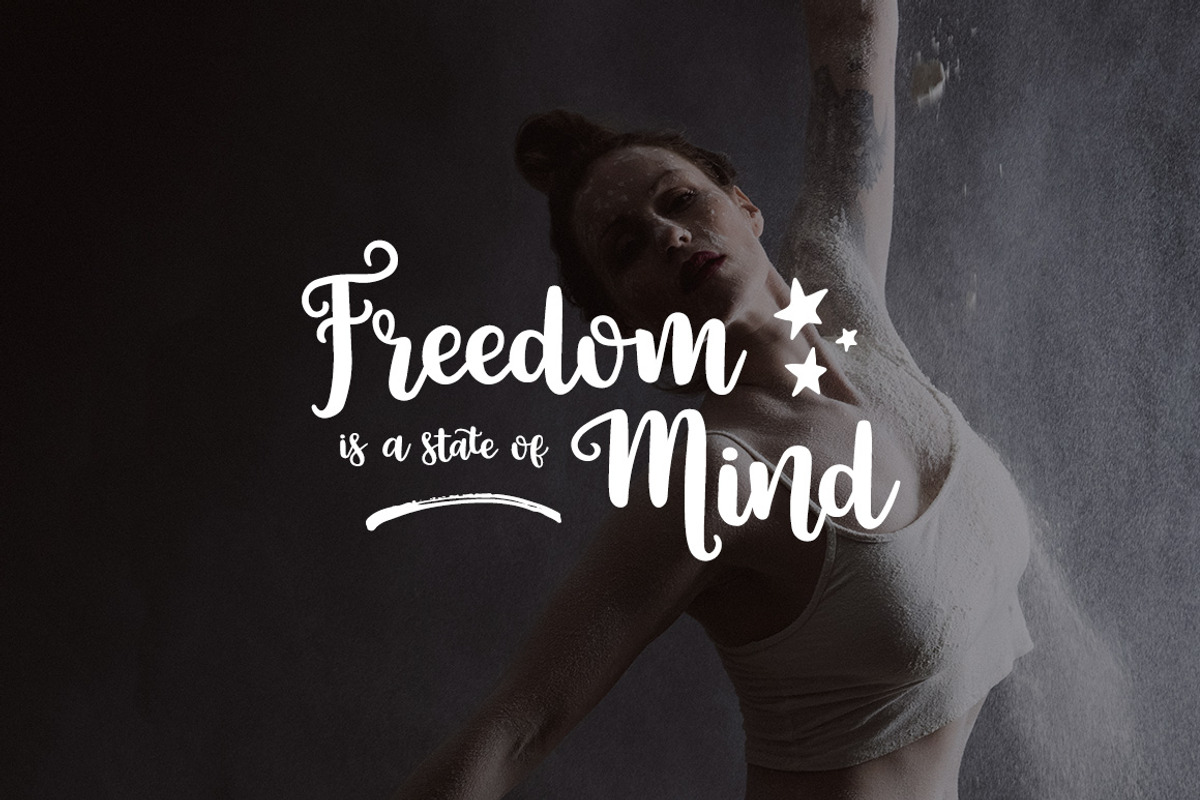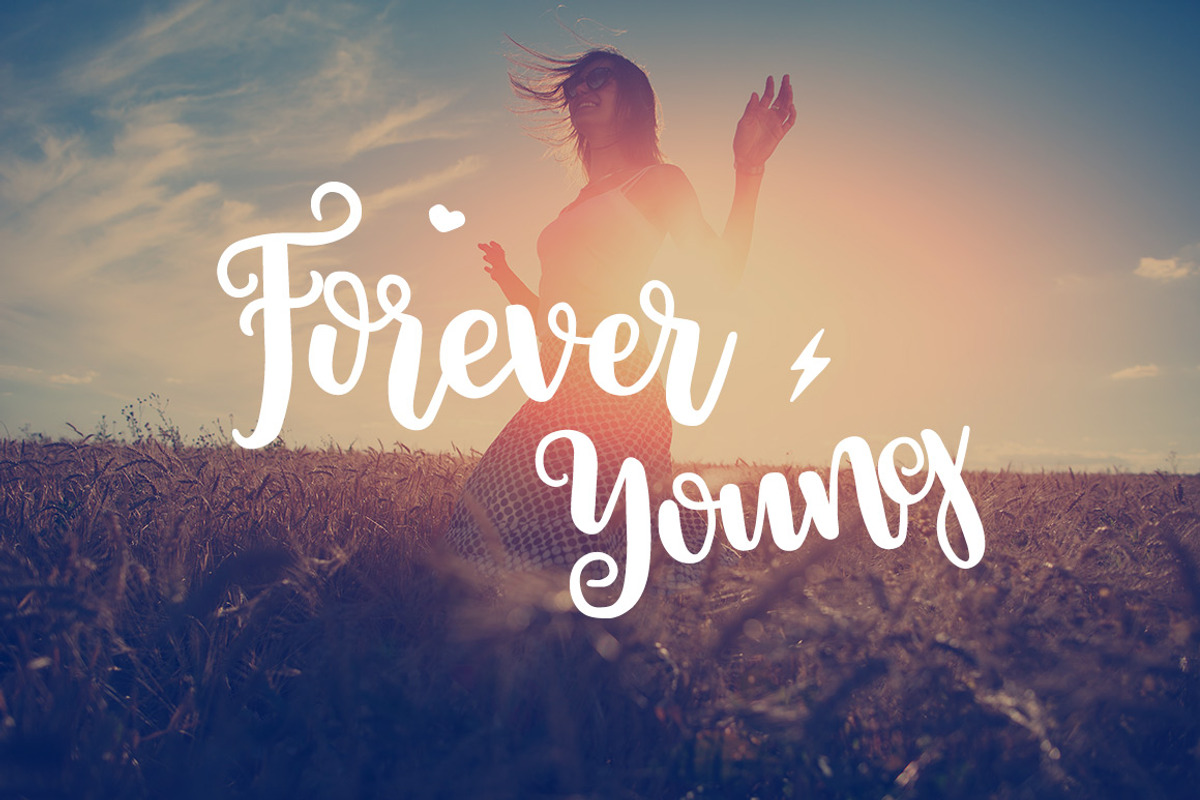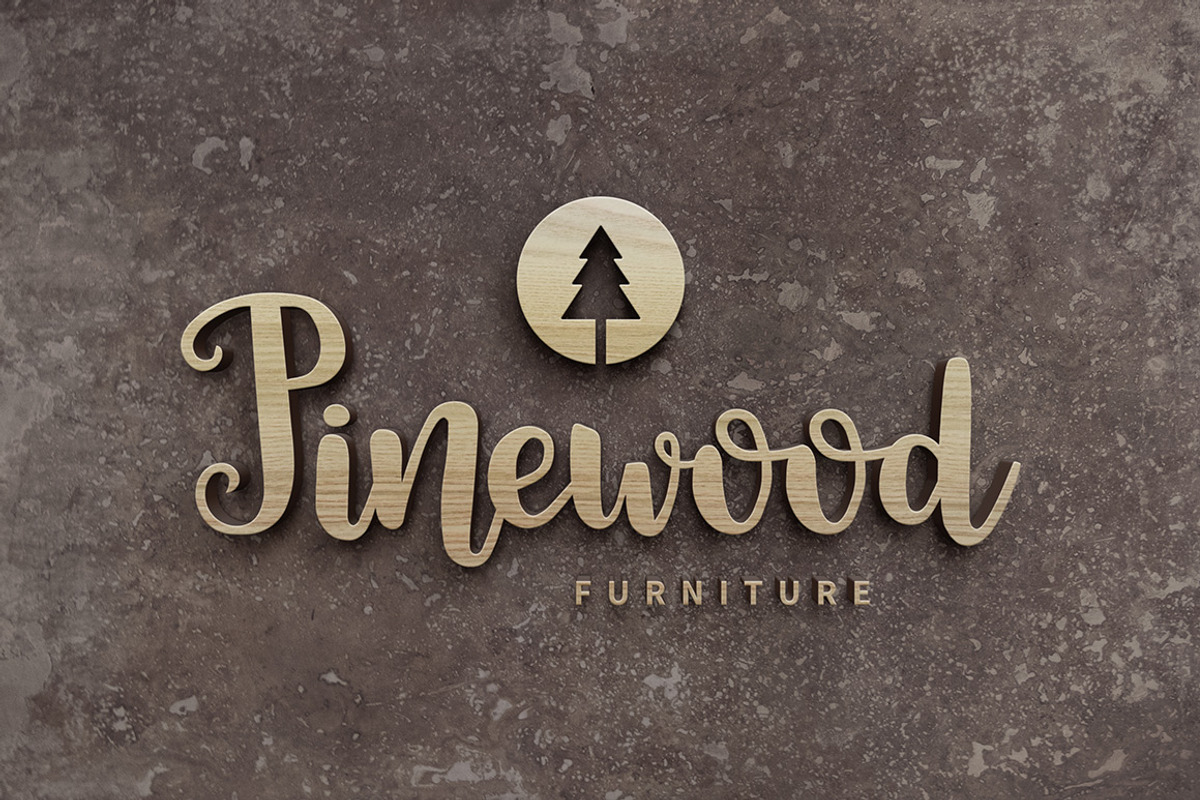
Download Alannah Script Font by pixelbuddha.net is a font selected for branding, posters, packaging, typography.
- Vast international language support;
- Contextual alternates;
- Dozens of ligatures.
Why Download Alannah Script Font is worth a look
Download Alannah Script Font by pixelbuddha.net fits naturally into Branding, posters, packaging, typography.